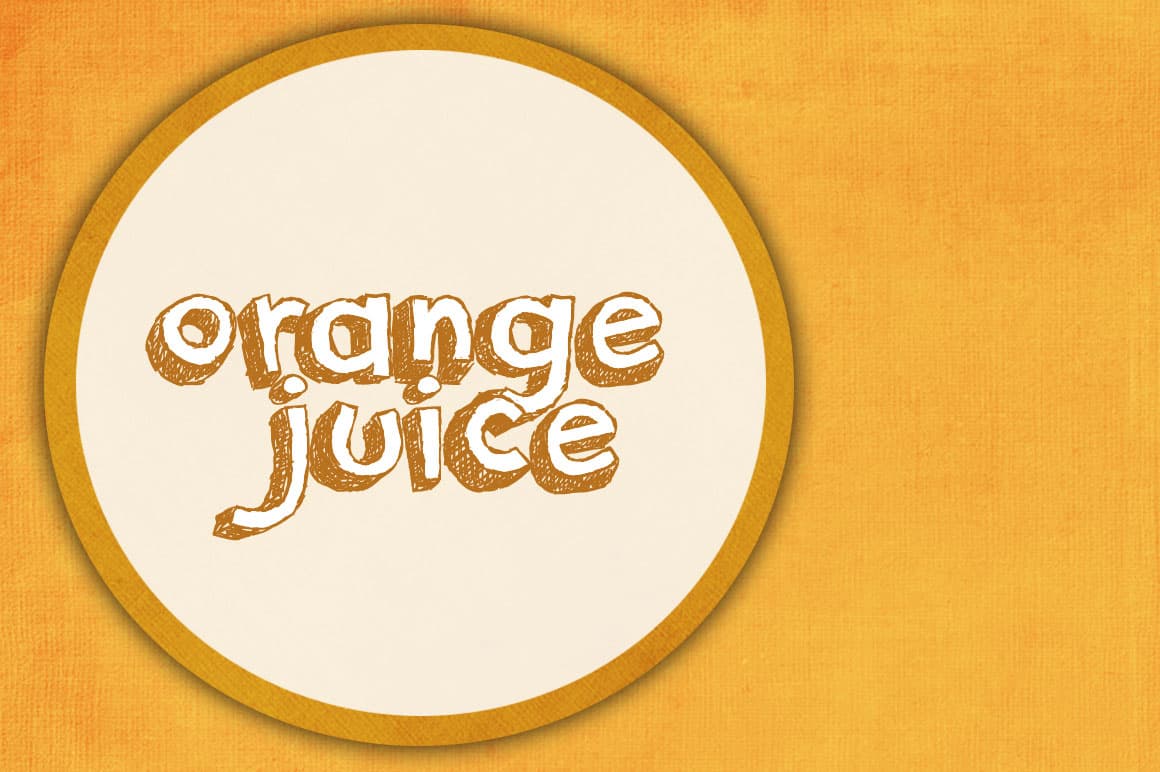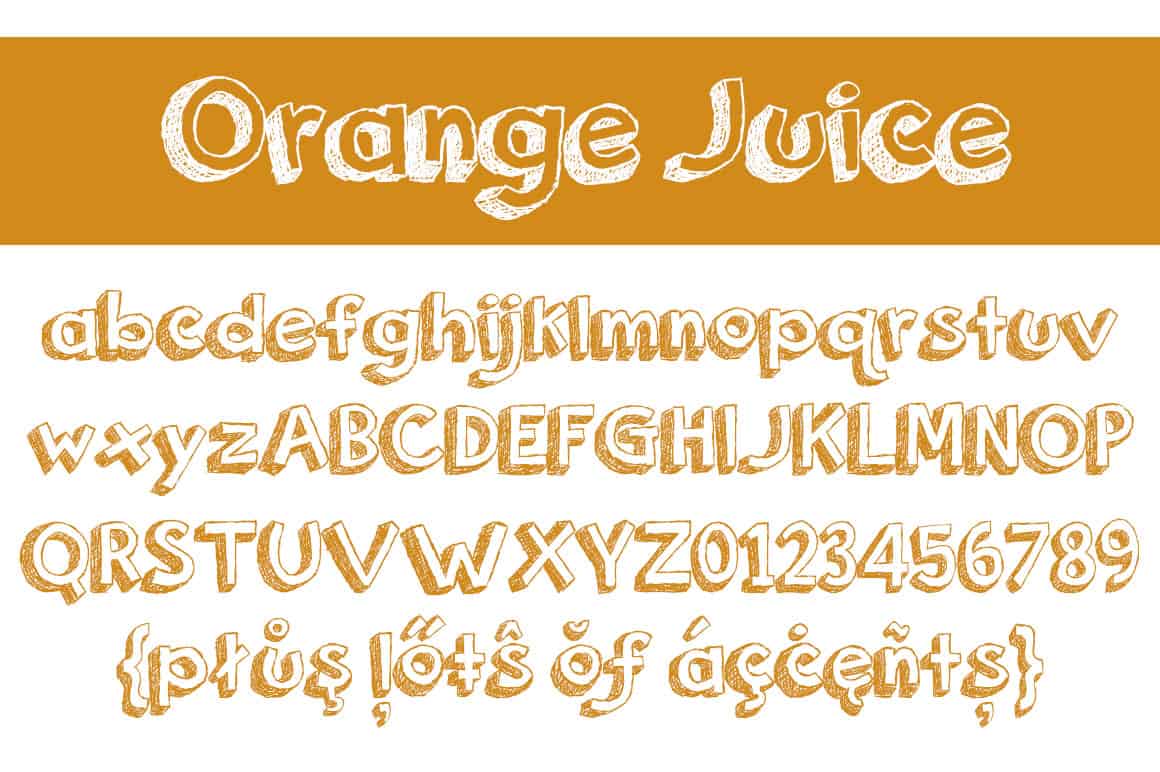
Orange Juice Font
Orange Juice font
Orange Juice Font Letters
About The Orange Juice Font
Orange Juice is a sketched 3D font created in 2014 by Brittney Murphy Design. Orange Juice contains 331 characters with extensive Latin glyphs that will support most Latin based languages. With over 4 million downloads worldwide, Orange Juice has been used by companies like Microsoft, General Mills, Barnes and Noble, and many others. Orange Juice is a great font for giving a cartoon or kid friendly feeling to any of your graphic design projects.